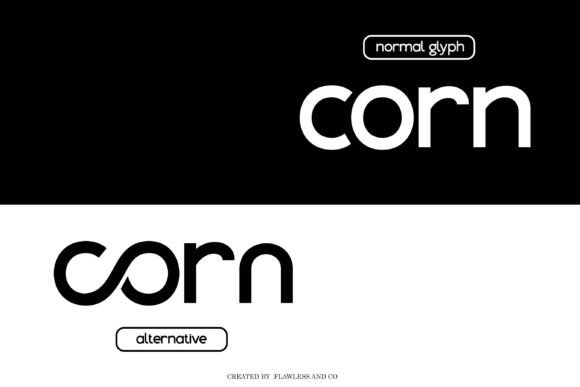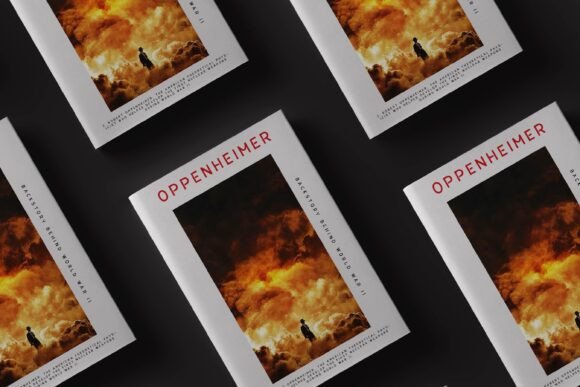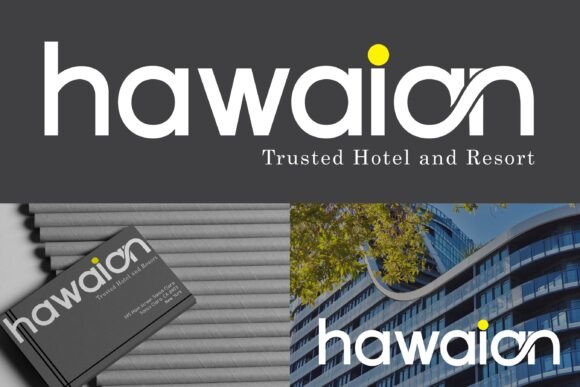
Mooxy Font: Modern Sans Serif for Bold Logo Design & Branding
About the Mooxy Font
Elevate your designs with Mooxy Font, a font that combines sophistication with readability. Mooxy is a modern logo font designed to bring a sleek and professional touch to branding and identity projects. With its clean lines and contemporary style, this font is perfect for logos, business branding, packaging, website headers, and marketing materials. Mooxy offers a sophisticated yet minimalistic look, making it ideal for businesses and creatives looking for a bold and memorable visual identity.
Mooxy’s strong, geometric forms excel in headlines, short text blocks, and logos, lending a modern and confident feel to branding and marketing materials. It is less suitable for body copy or lengthy paragraphs due to its bold weight and potentially limited x-height. Avoid using it in UI contexts requiring high readability at small sizes.
Pairing Mooxy effectively requires considering its assertive personality. A classic serif like Garamond or a clean sans-serif such as Lato would create a sophisticated contrast, softening Mooxy’s boldness while maintaining visual interest. For a more playful feel, consider pairing it with a rounded sans-serif like Bebas Neue.
The overall personality of Mooxy is bold, sophisticated, and contemporary, making it ideal for brands projecting authority, innovation, or high-end quality.
Mooxy Font Usage Examples
Mooxy Font Example